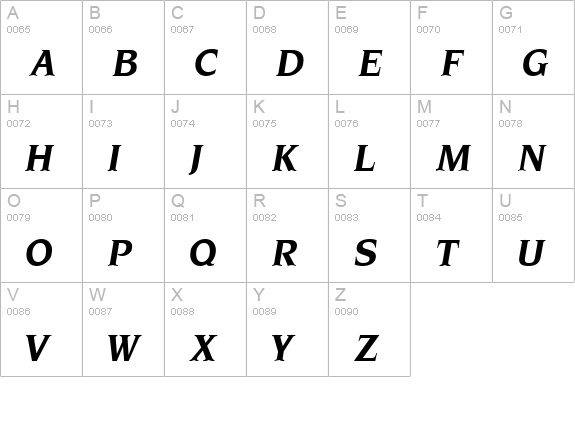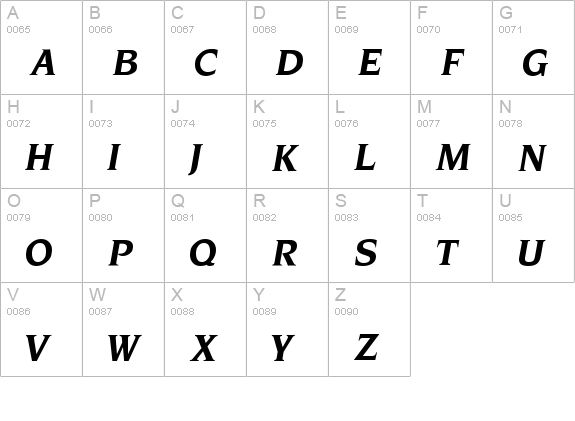
Imperia Font Details
Imperia font is a classic and elegant typeface that exudes sophistication and timeless appeal. With its clean lines and distinctive serifs, Imperia is perfect for adding a touch of refinement to any design project. Whether you're creating invitations, branding materials, or editorial layouts, Imperia font will elevate your work to the next level. What's even better is that Imperia font is completely free to download at FontsMarket.com. This means you can access this high-quality typeface without any cost, making it a valuable addition to your font collection. Don't miss out on the opportunity to enhance your designs with the beauty and grace of Imperia font - download it today and start creating stunning visuals effortlessly.